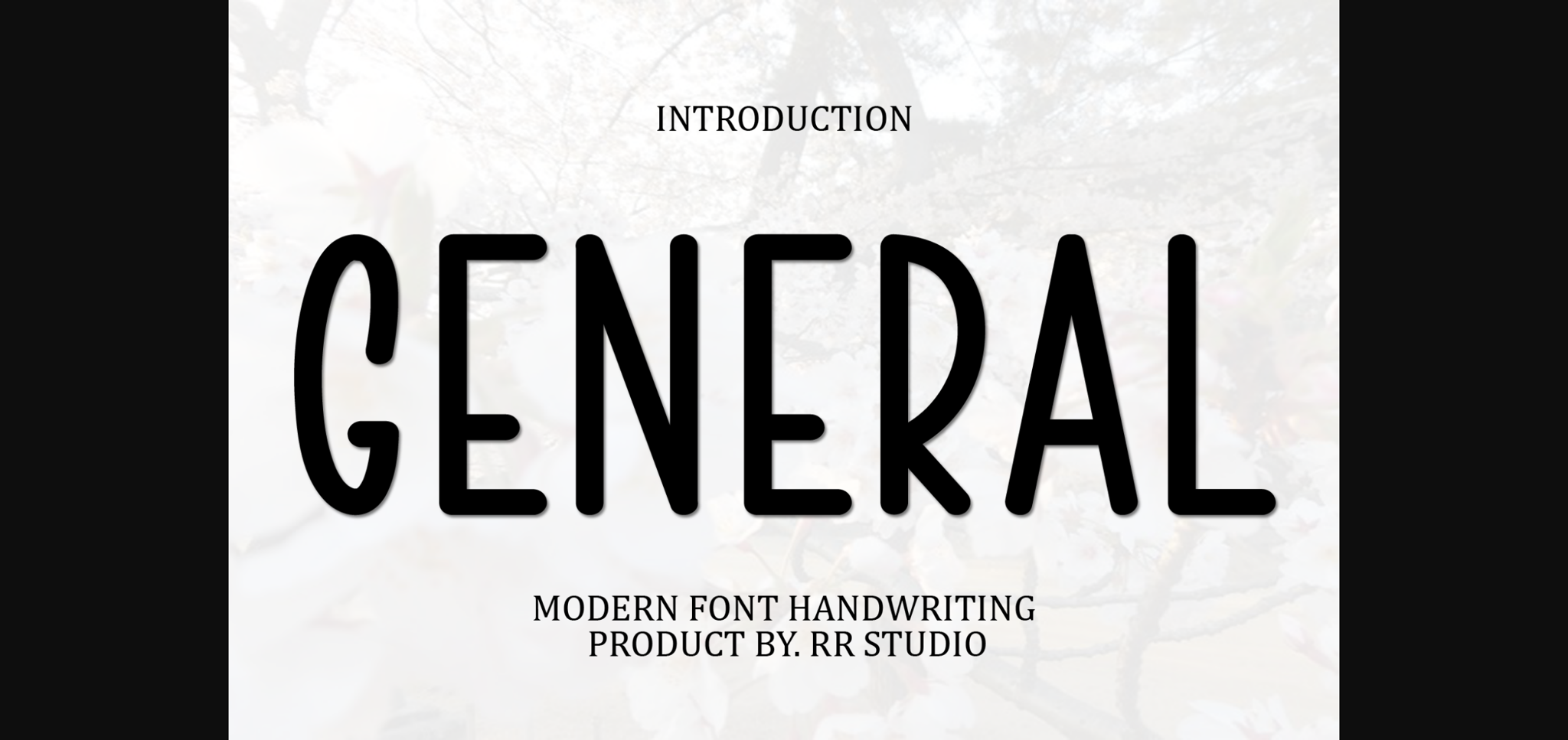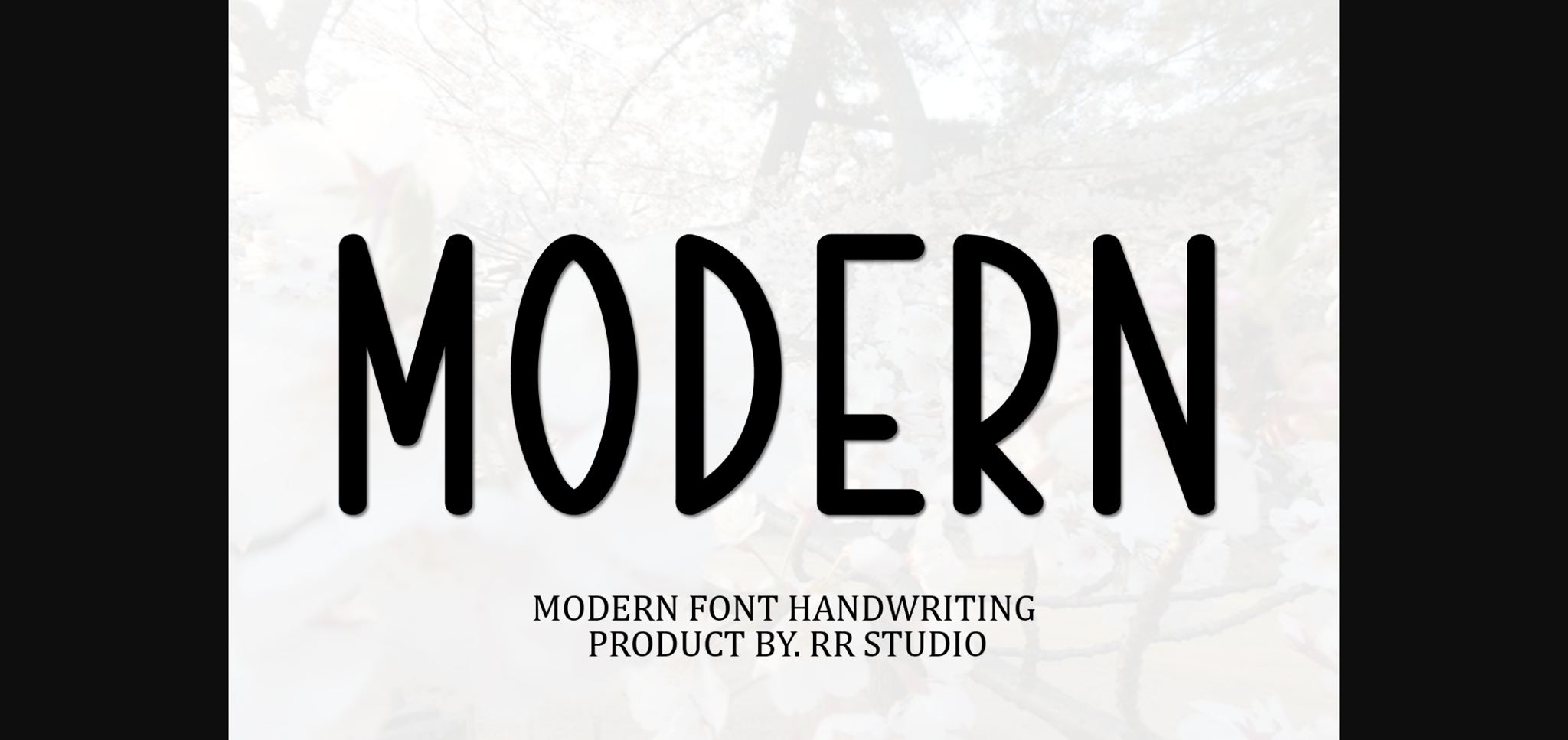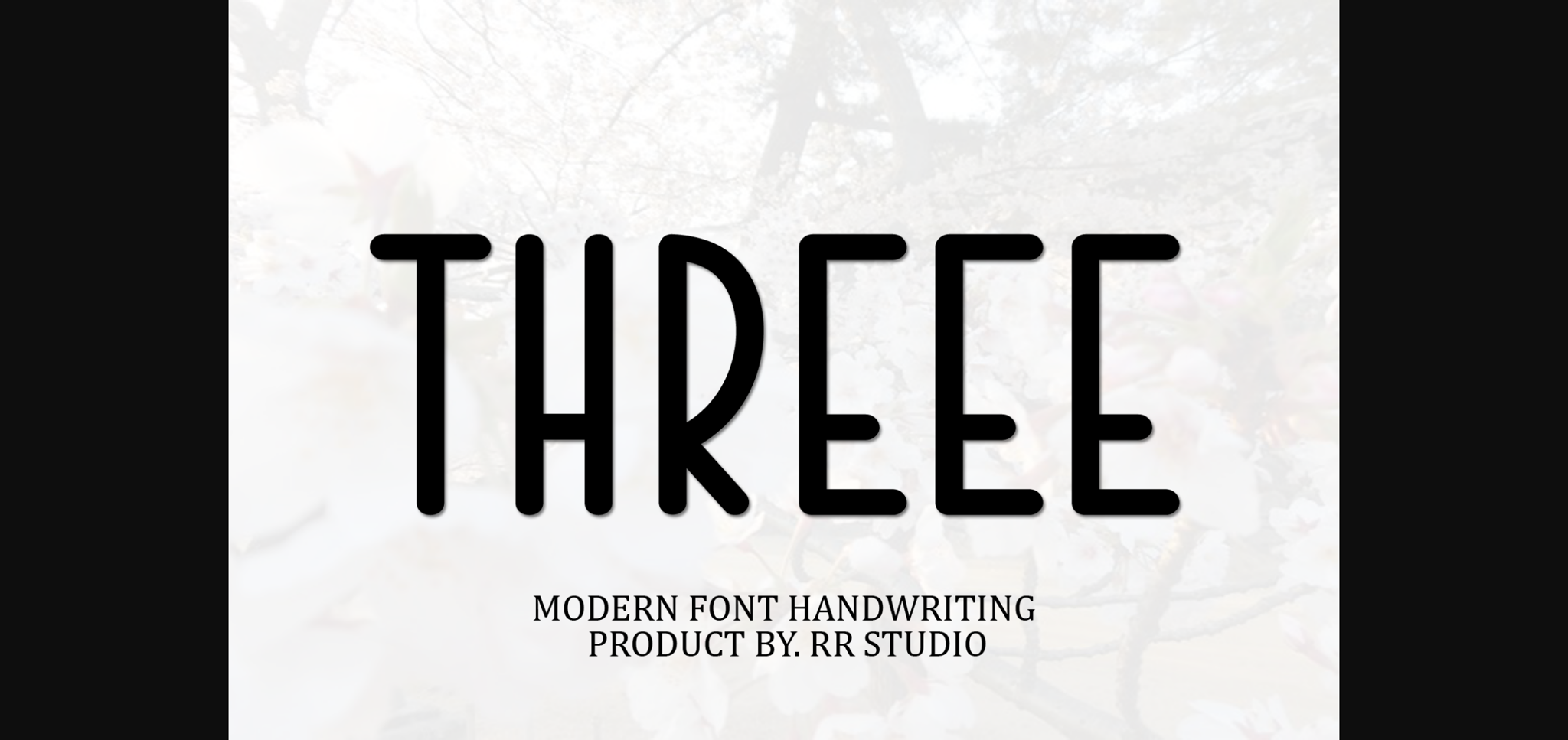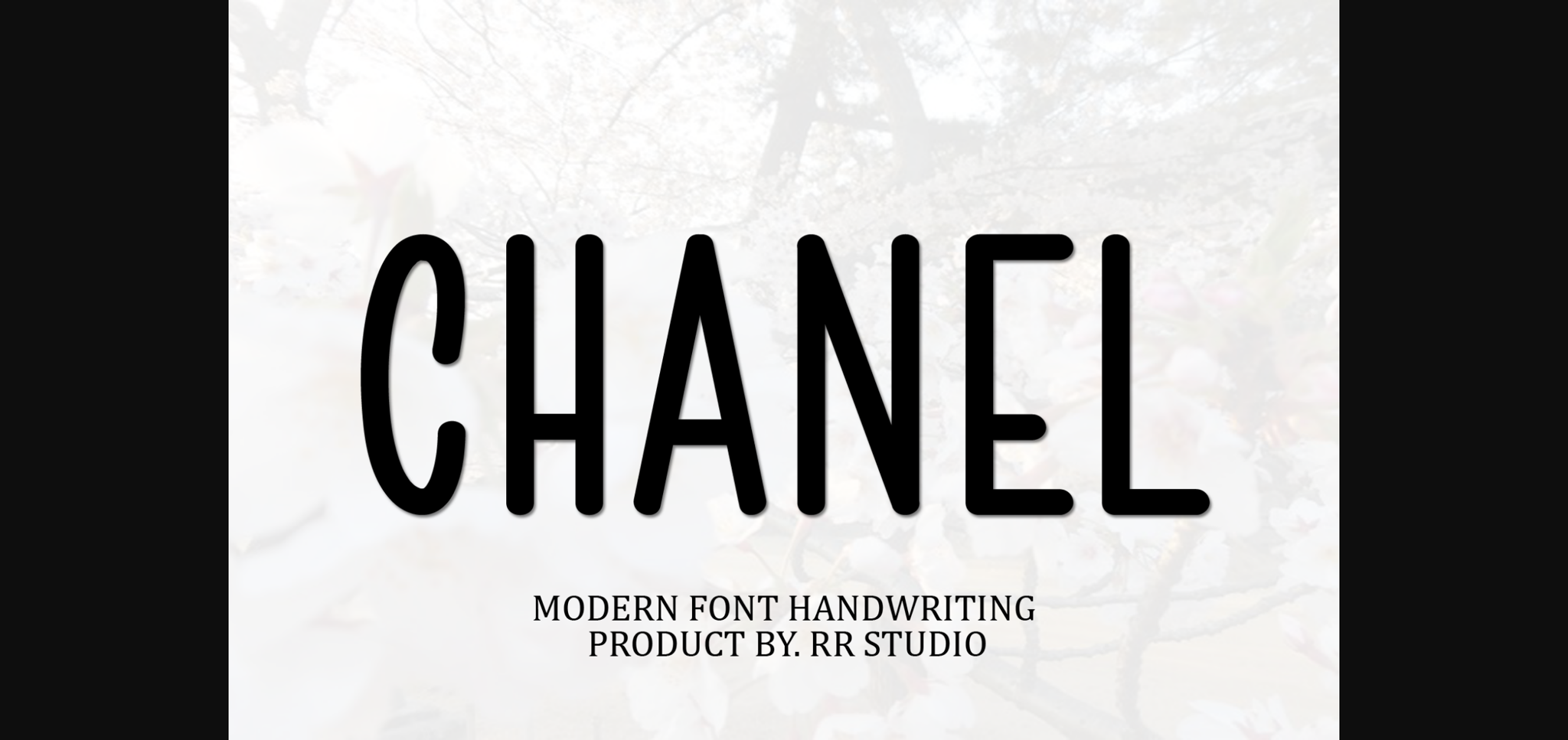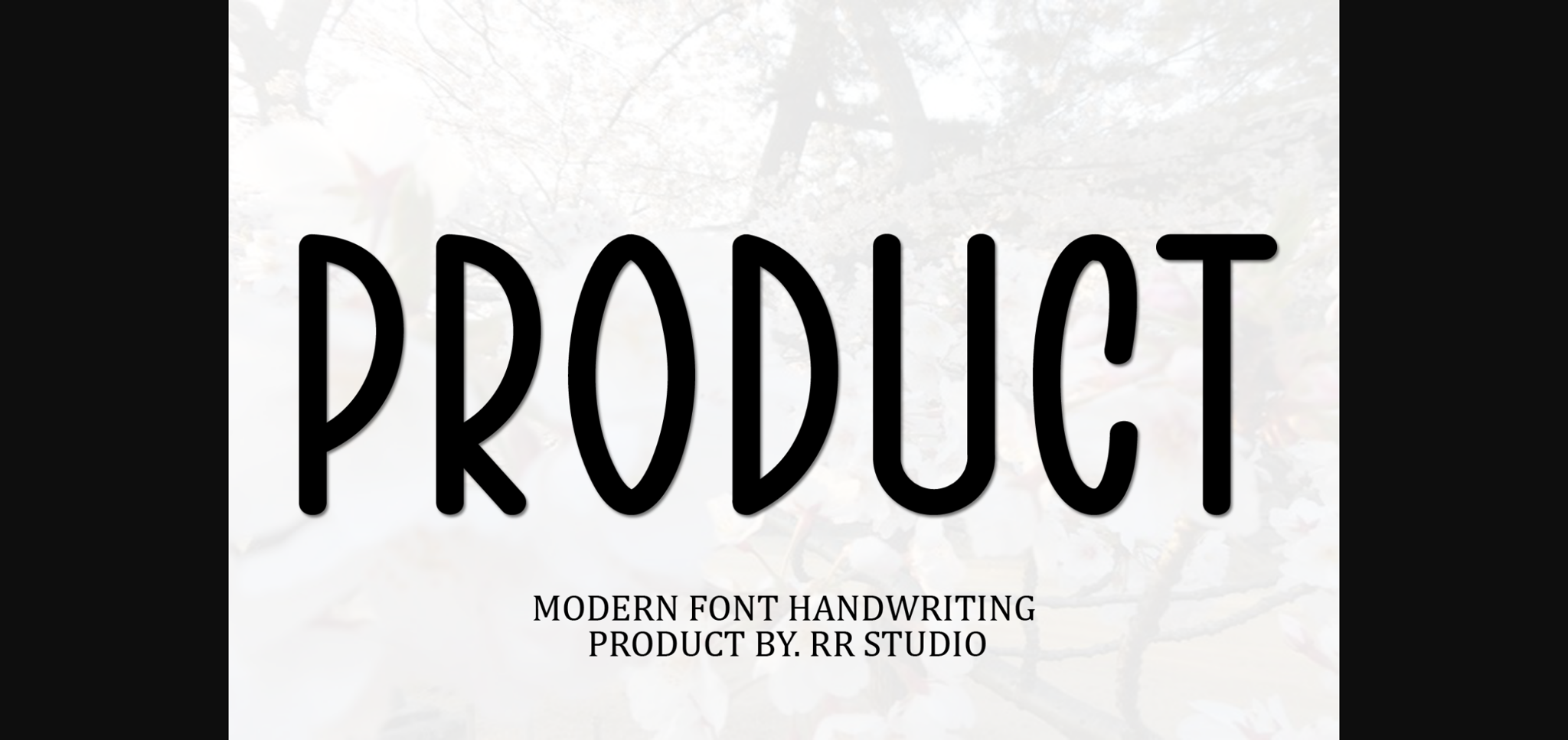
General Font
About General Font
General is a straightforward and tidy sans-serif font that embodies simplicity and clarity. Its clean lines and balanced proportions make it perfect for various design applications, from body text in publications to headers on websites. General maintains readability while offering a modern and uncluttered aesthetic for your projects.